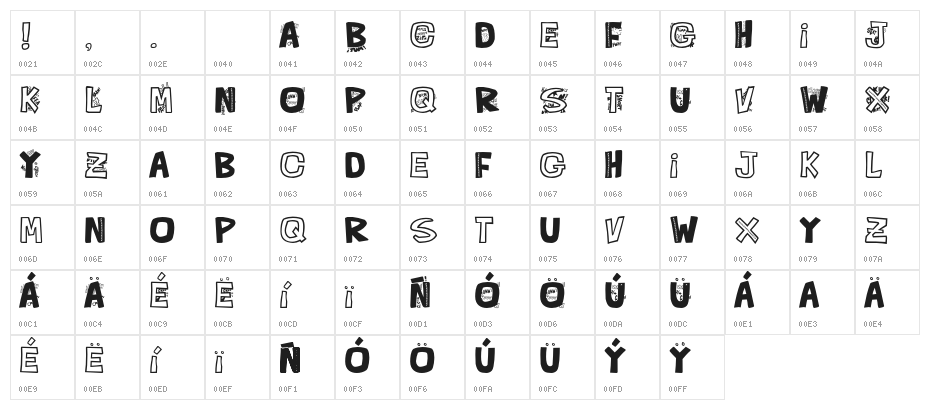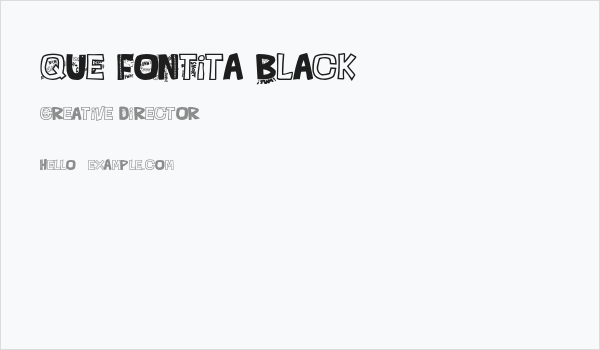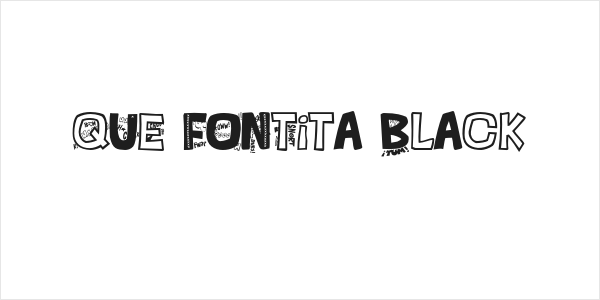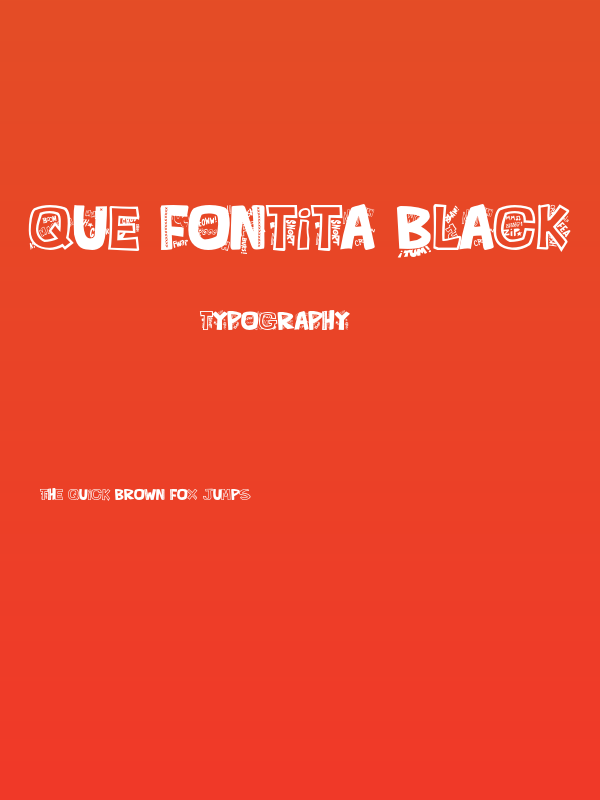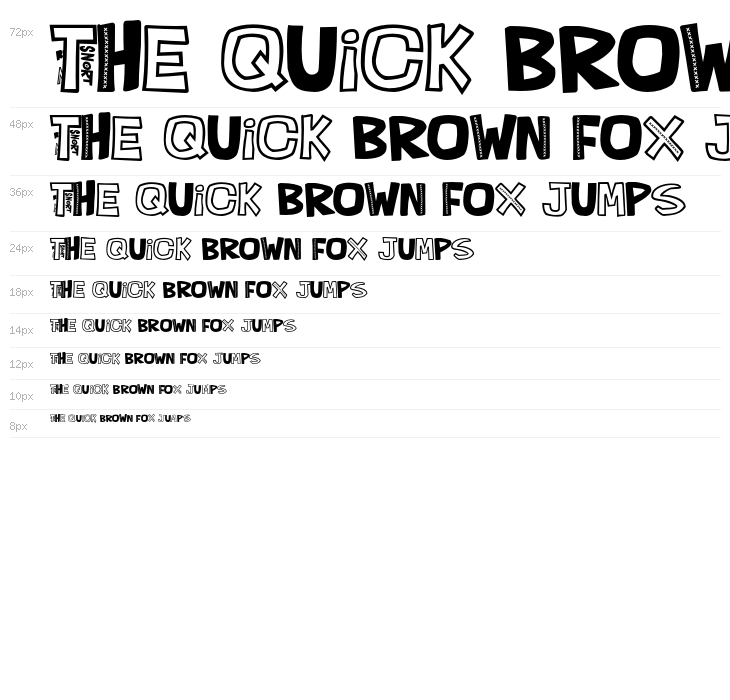
QUE FONTita Black Font
QUE FONTita Black Description
This playful and bold font features a comic book style with a hand-drawn aesthetic. Each character is uniquely designed with varying thickness and quirky details, reminiscent of classic comic strip lettering. The uppercase letters are particularly striking, with exaggerated forms and dynamic strokes that add a sense of movement and energy. The lowercase letters maintain this lively style, ensuring consistency throughout the typeface. The font includes a variety of special characters, each with its own distinctive flair, making it ideal for creative and informal projects.
Overall StylePlayful, Comic, Hand-drawn
Use CaseHeadlines, Posters, Branding
Proposed ProjectsIdeal for comic books, children's books, playful branding, posters, and creative projects that require a fun and energetic typeface.